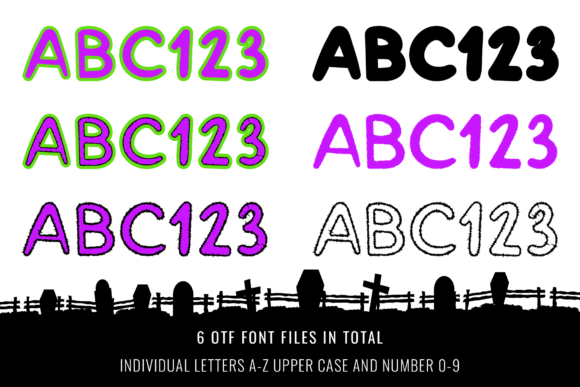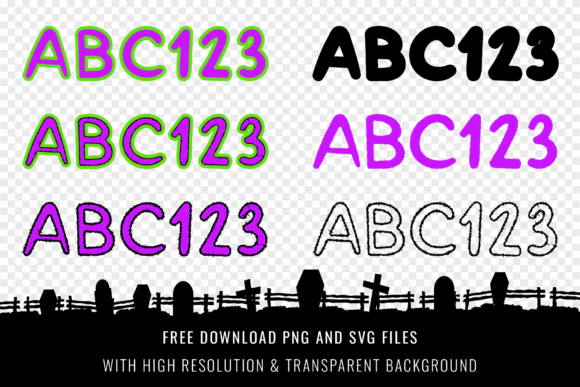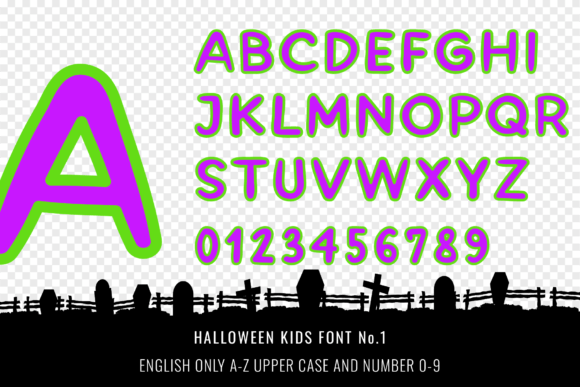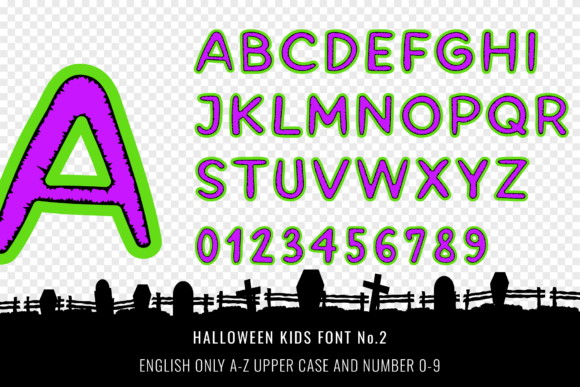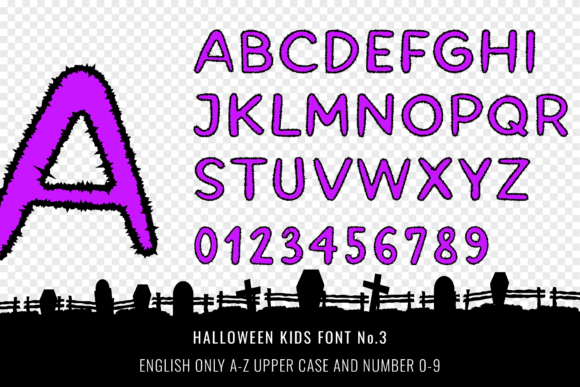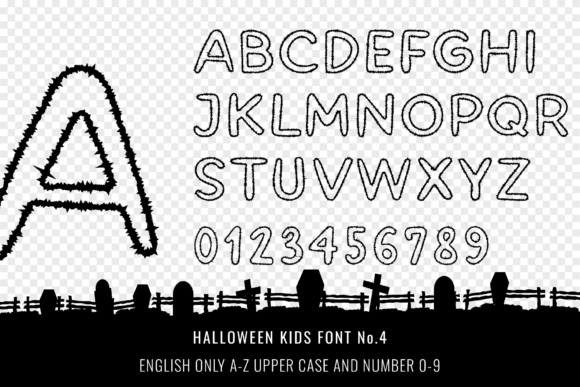
Halloween Kids Font: The Perfect Addition to Your Spooky Season Designs
Are you looking for a font that will add a touch of fun and playfulness to your Halloween-themed designs for kids? Look no further than the Halloween Kids Font! This vibrant and colorful font is perfect for creating eye-catching designs that are sure to scream for attention. In this article, we’ll dive into the features and benefits of the Halloween Kids Font, and explore how you can use it to create amazing designs for the spooky season.
What is Halloween Kids Font?
Halloween Kids Font is a fun and playful color font that is specifically designed for creating Halloween-themed designs for kids. The font comes with three separate files: black, outline, and color, giving you maximum flexibility and creative control. Whether you’re a designer, crafter, or DIY enthusiast, this font is perfect for adding a touch of Halloween magic to your projects.
Key Features of Halloween Kids Font
- Color Font: The Halloween Kids Font comes with a color font file that allows you to create vibrant and colorful designs with just a few clicks.
- Black and Outline Files: The font also includes separate black and outline files, giving you the flexibility to use the font in a variety of design applications.
- Playful and Fun: The Halloween Kids Font is designed to be playful and fun, making it perfect for creating designs that are geared towards kids.
- Versatile: This font is perfect for a wide range of design applications, including t-shirts, book designs, restaurant menus, blog writing, and greeting cards.
How to Use Halloween Kids Font
The Halloween Kids Font is easy to use and can be incorporated into a variety of design projects. Here are a few ideas to get you started:
- T-Shirts and Apparel: Use the Halloween Kids Font to create fun and spooky designs for t-shirts, hoodies, and other apparel.
- Book Designs: Add a touch of Halloween magic to your children’s book designs with this playful font.
- Restaurant Menus: Create a spooky and fun menu for your restaurant or cafe with the Halloween Kids Font.
- Blog Writing: Use the Halloween Kids Font to add a touch of personality to your blog posts and articles.
- Greeting Cards: Create spooky and fun greeting cards for Halloween with this versatile font.
- Stickers and Labels: Use the Halloween Kids Font to create fun and colorful stickers and labels for your designs.
Why Choose Halloween Kids Font?
There are many fonts to choose from, but the Halloween Kids Font stands out from the rest. Here are a few reasons why:
- Unique and Playful Style: The Halloween Kids Font has a unique and playful style that is sure to grab attention.
- Easy to Use: This font is easy to use and can be incorporated into a variety of design applications.
- Versatile: The Halloween Kids Font is perfect for a wide range of design projects, from t-shirts to greeting cards.
- High-Quality: This font is high-quality and comes with separate black, outline, and color files.
If you’re looking for a font that will add a touch of fun and playfulness to your Halloween-themed designs for kids, look no further than the Halloween Kids Font. With its unique and playful style, ease of use, and versatility, this font is perfect for designers, crafters, and DIY enthusiasts. So why wait? Download the Halloween Kids Font today and start creating spooky and fun designs that are sure to scream for attention!